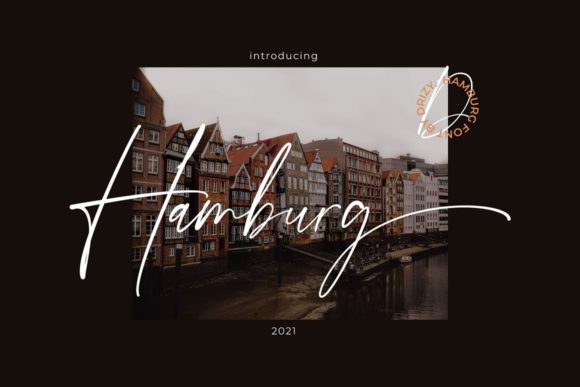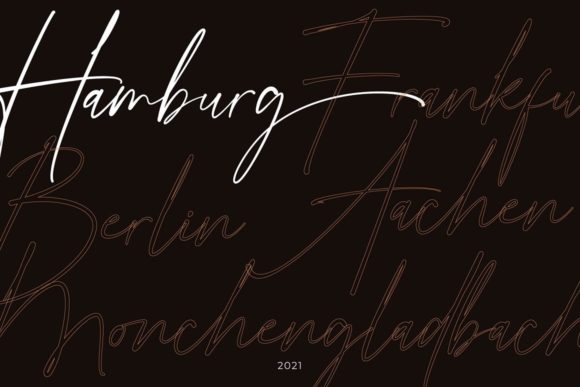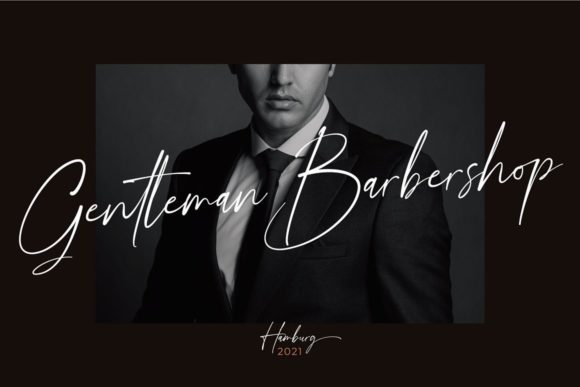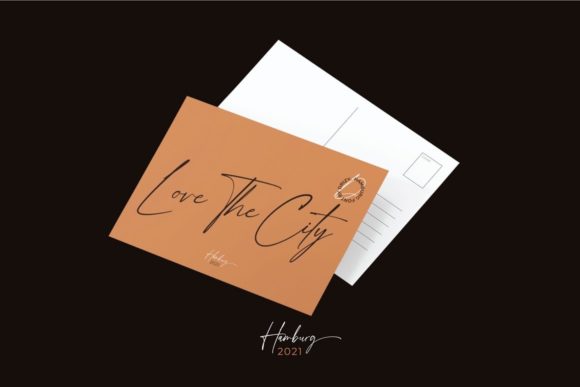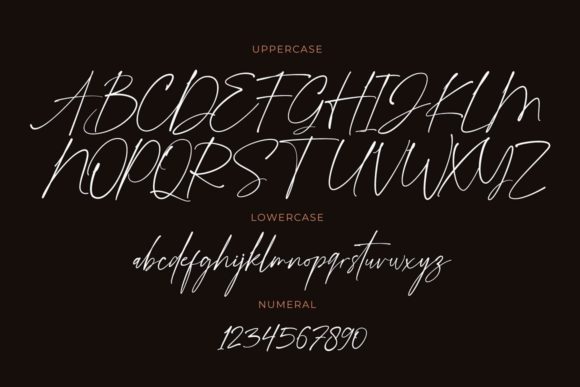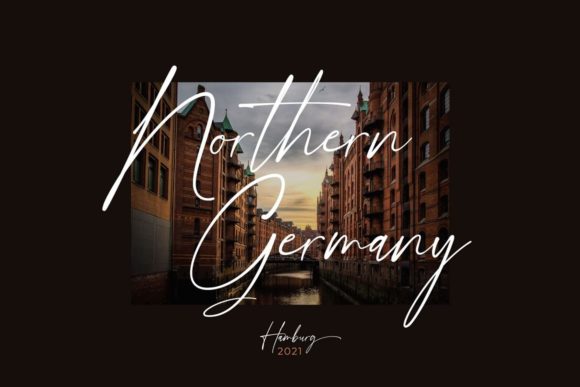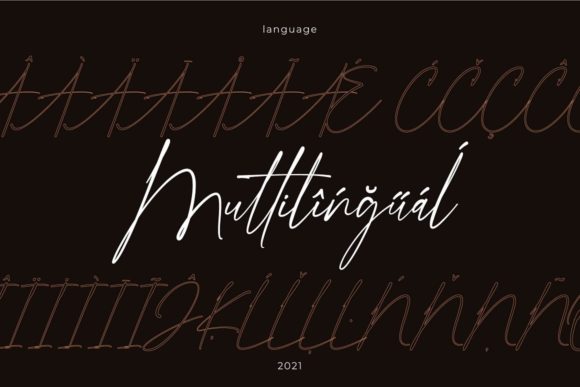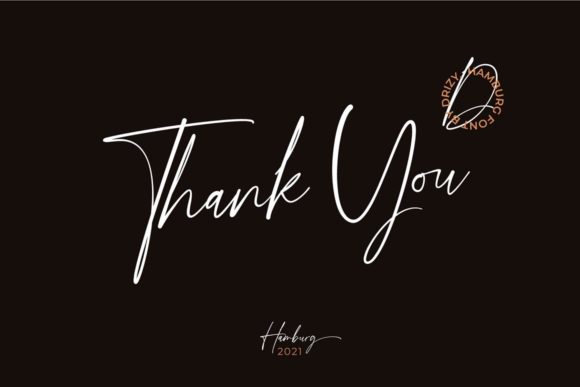
Hamburg Font
About Hamburg Font
Hamburg is a stylish and incredibly elegant script font. It looks stunning on wedding invitations, thank you cards, quotes, greeting cards, logos, business cards and every other design which needs a customized touch.